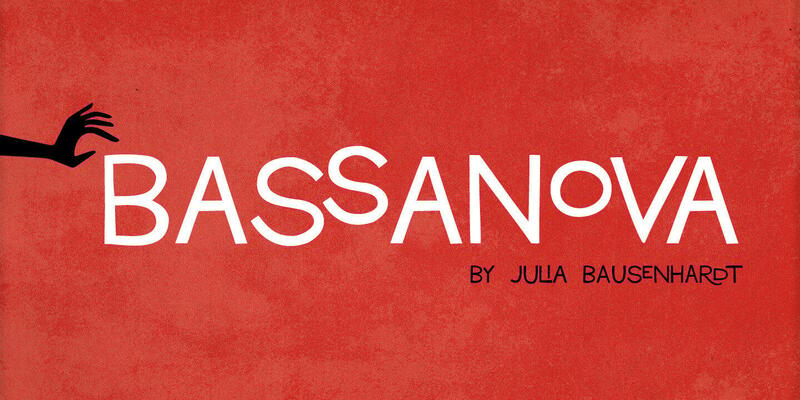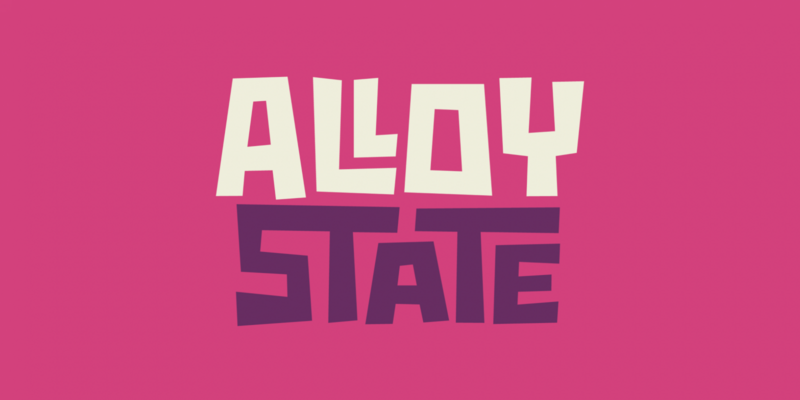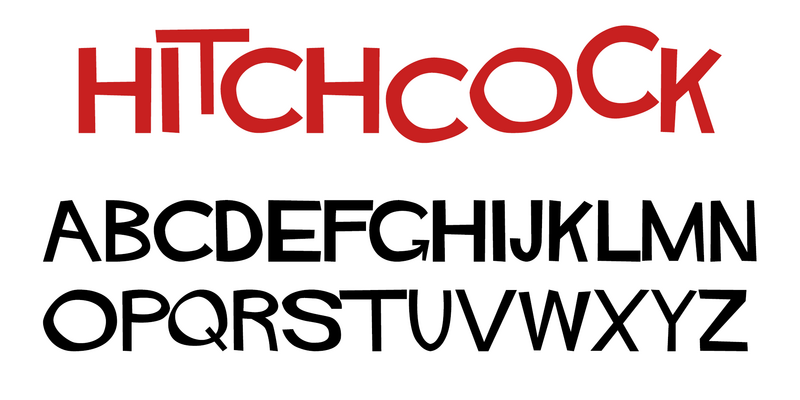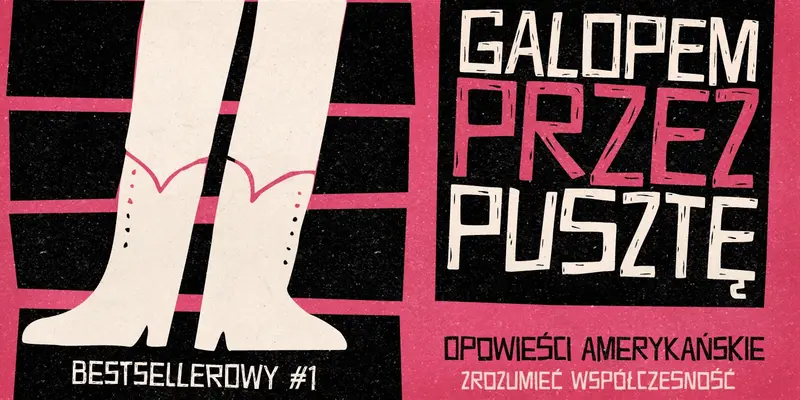
Fonts in the Style of Saul Bass Lettering
Saul Bass (1920—1996) was an American graphic designer and filmmaker, best known for his unique designs of motion-picture title sequences and film posters. Several typefaces exist, which are directly based on this style or specific titles he created.